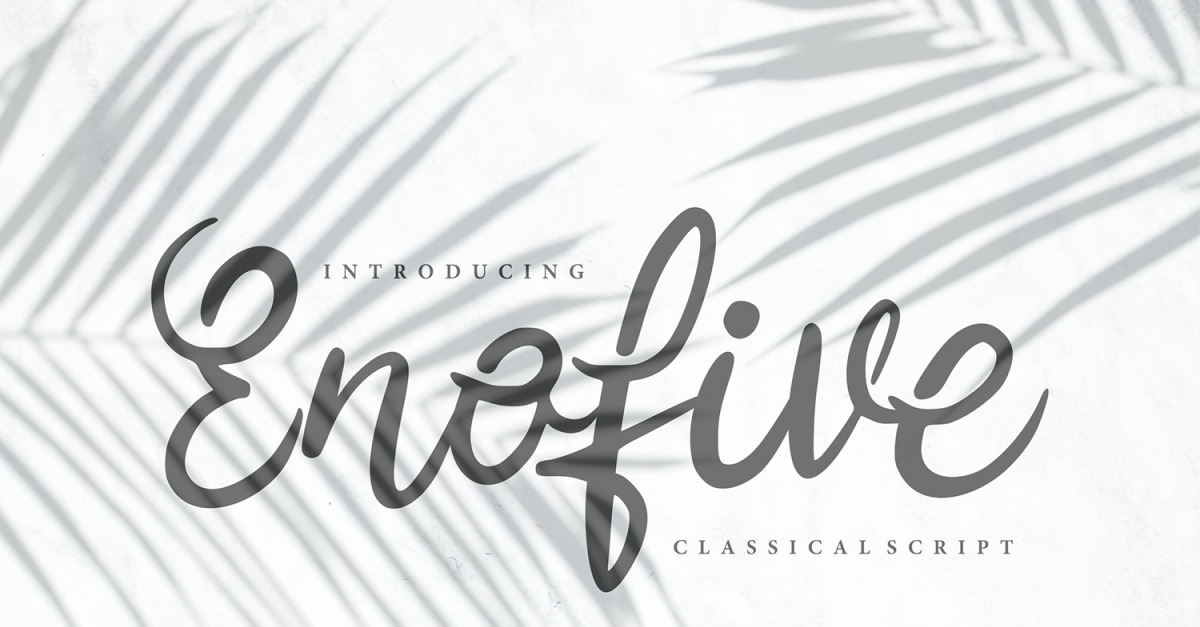
Enofive | Classical Cursive Font
**Enofive | Classical Script Font** with a calligraphy style, So beautiful on invitation like greeting cards, branding materials, business cards, quotes, posters, and more!